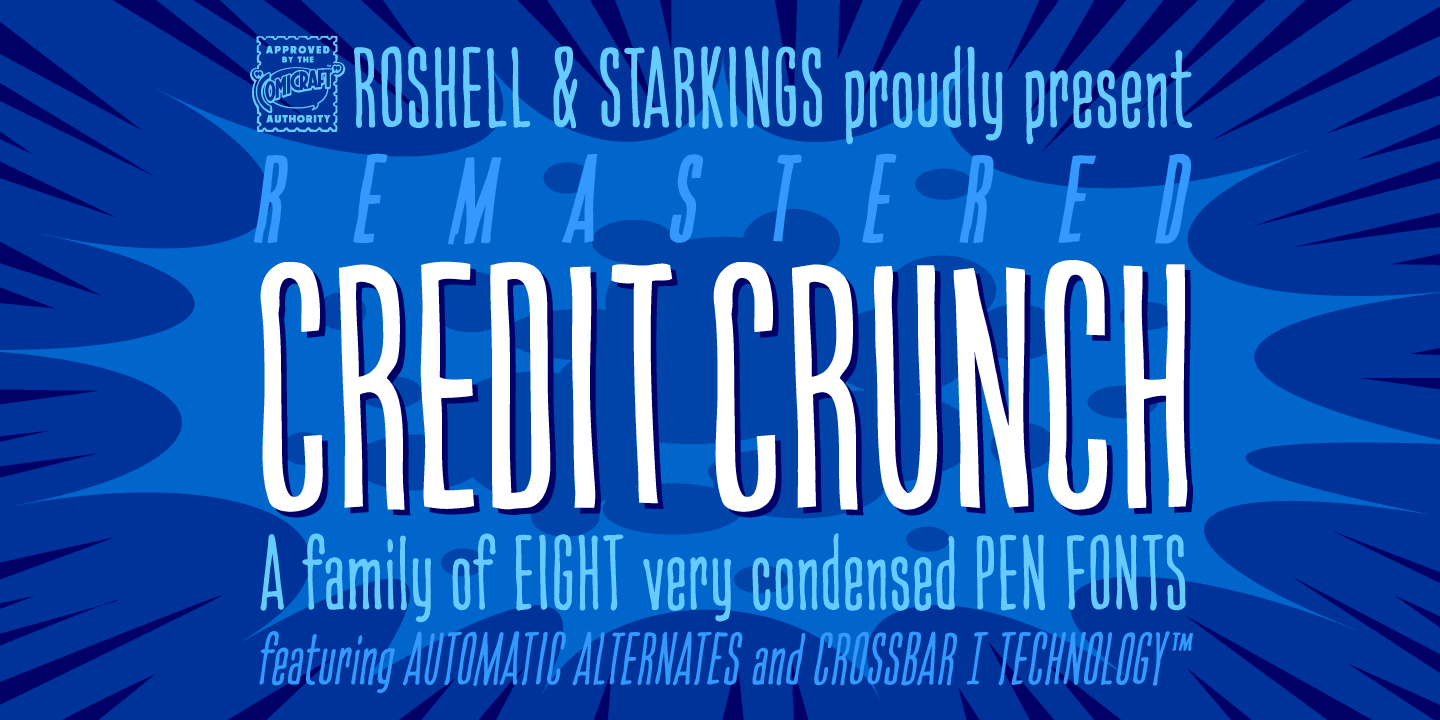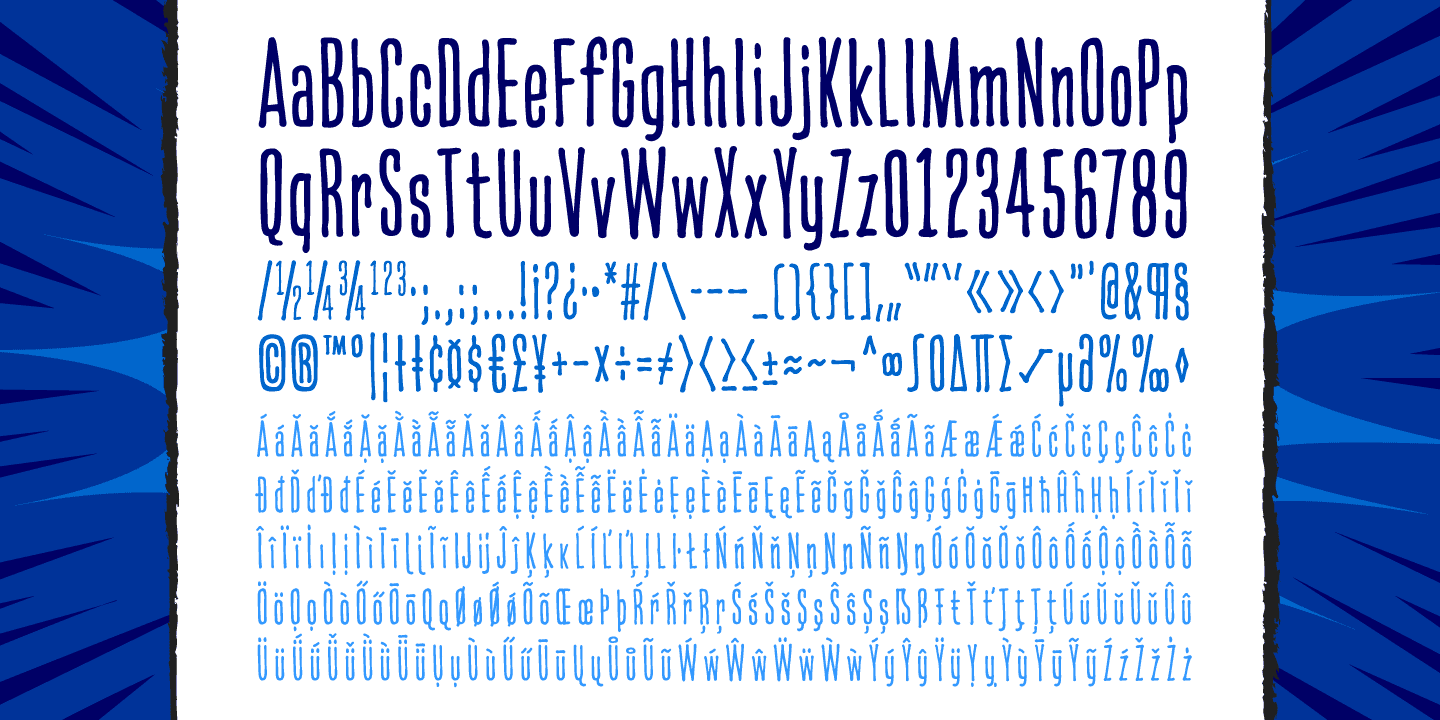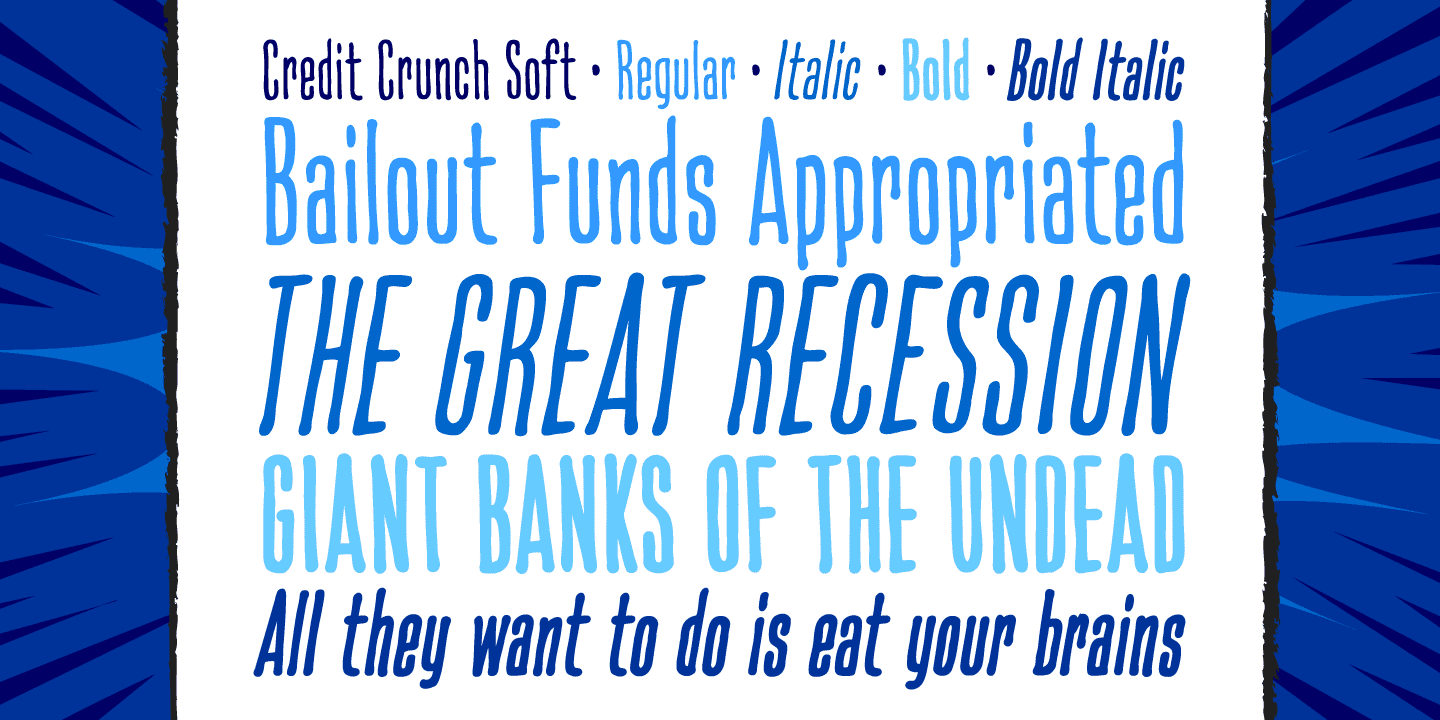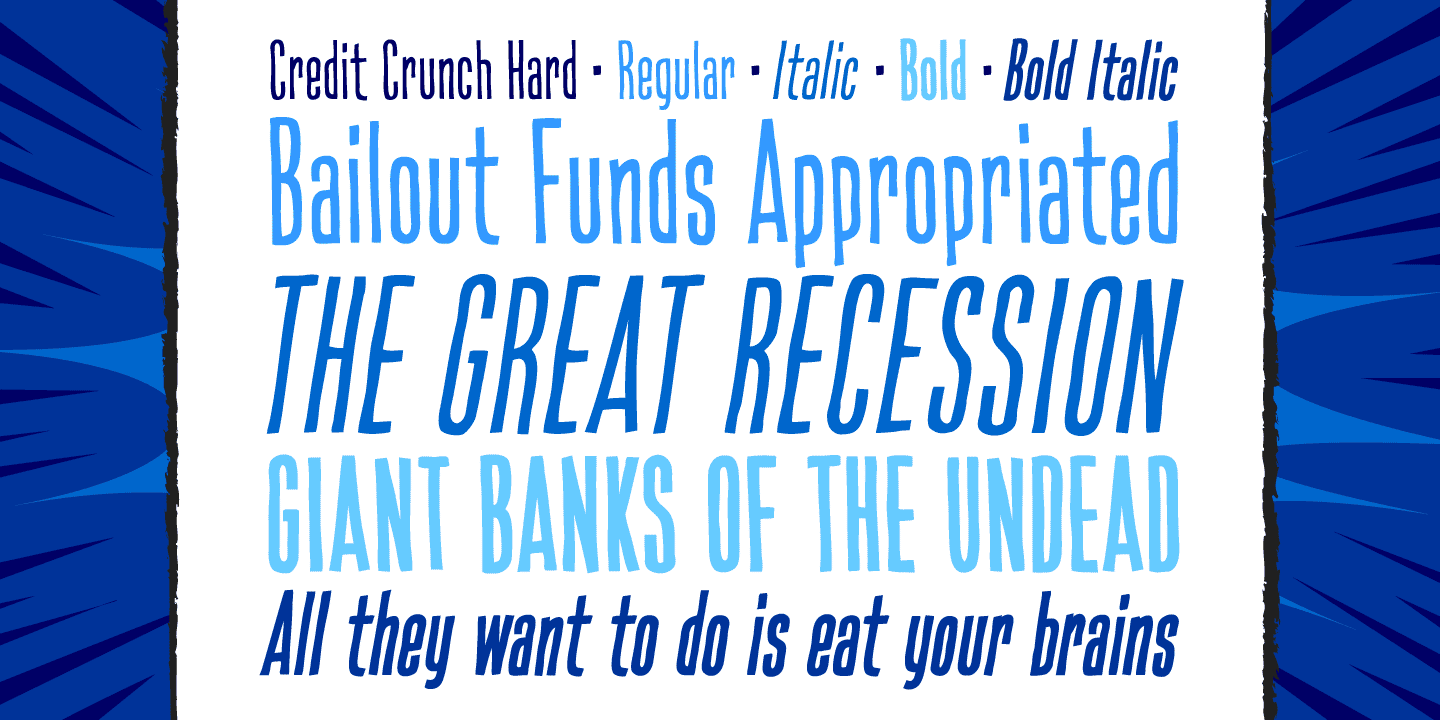
Credit Crunch
Font Family by Comicraft Fonts
While waiting in line at the bank to deposit his bailout check in 2008, Jazzy JG Roshell had an idea. It was a tall order, but he wanted to create a font that would use the absolute minimum amount of space & resources, and meticulously drew CREDIT CRUNCH using one of those ballpoint pens attached to the teller's window on a metal chain.
Newly expanded & improved with additional weights and loads of new features, the Remastered Credit Crunch font family is built to get you through this -- and every -- economic crisis as only the 26 letters of the alphabet can!